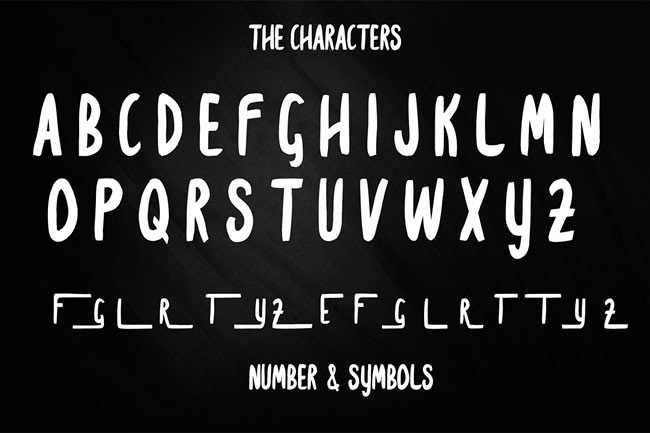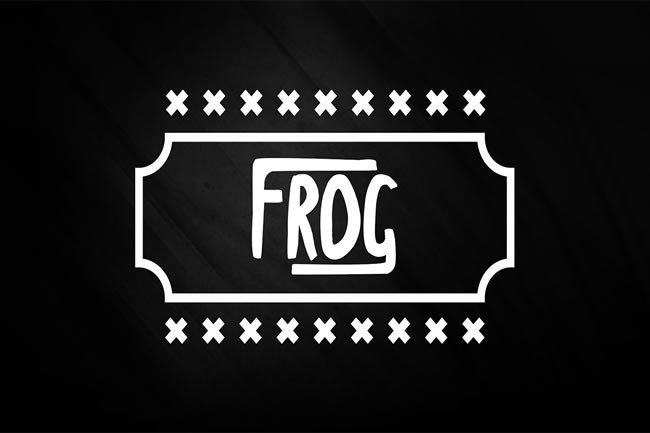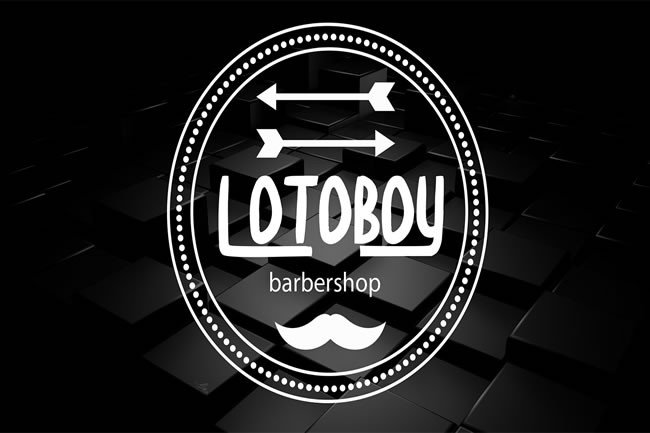
Introduction to Reknar Font
‘Reknar’ is a handmade brush font.
Perfect for designing invitations, greeting cards, branding materials, business cards, quotes, posters, and more .
Key Features of Reknar Font
Why Choose Reknar Font?
Reknar Font offers exceptional quality and versatility, making it a valuable addition to your design toolkit. Whether you’re creating for personal projects or commercial use, Reknar Font delivers professional results.